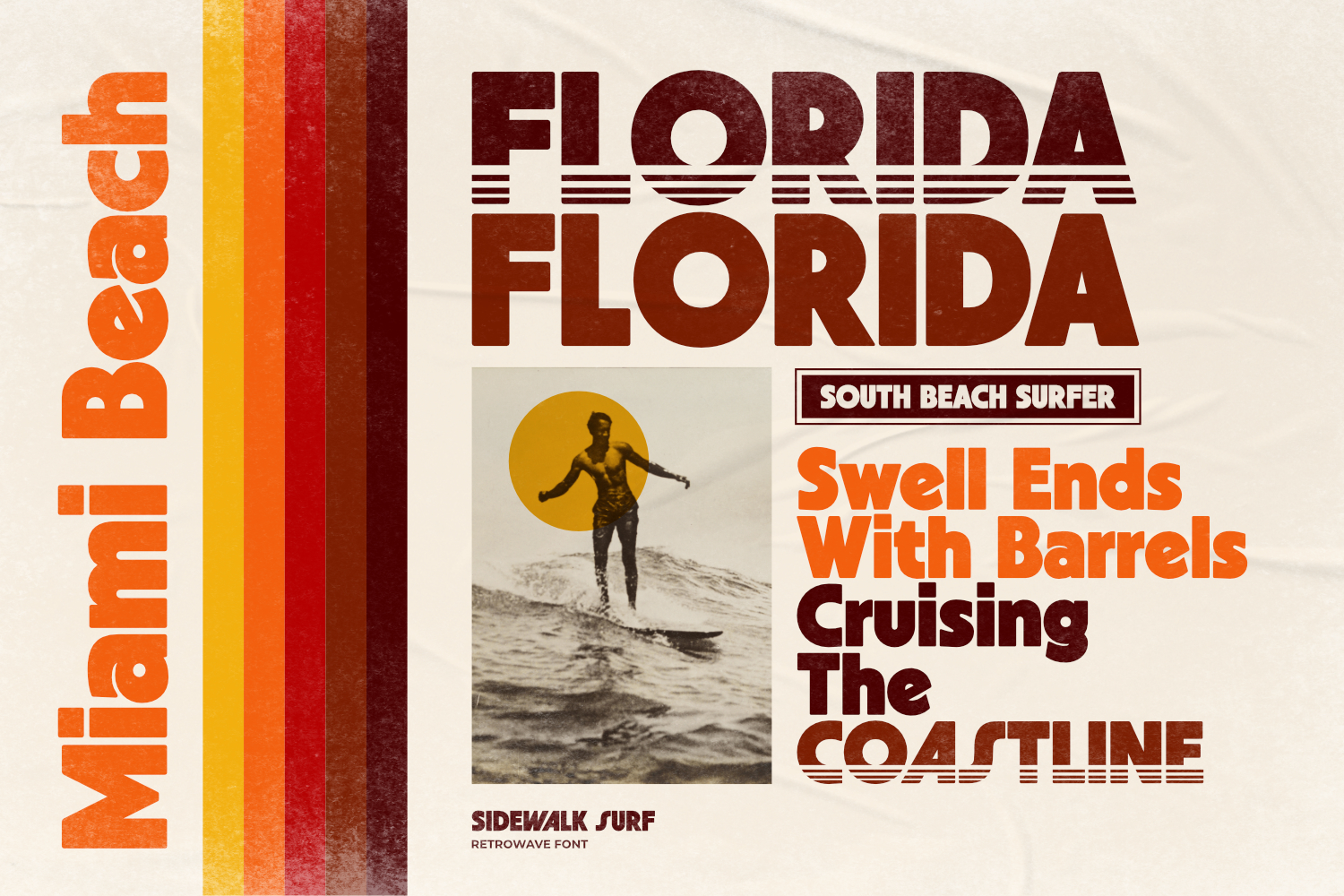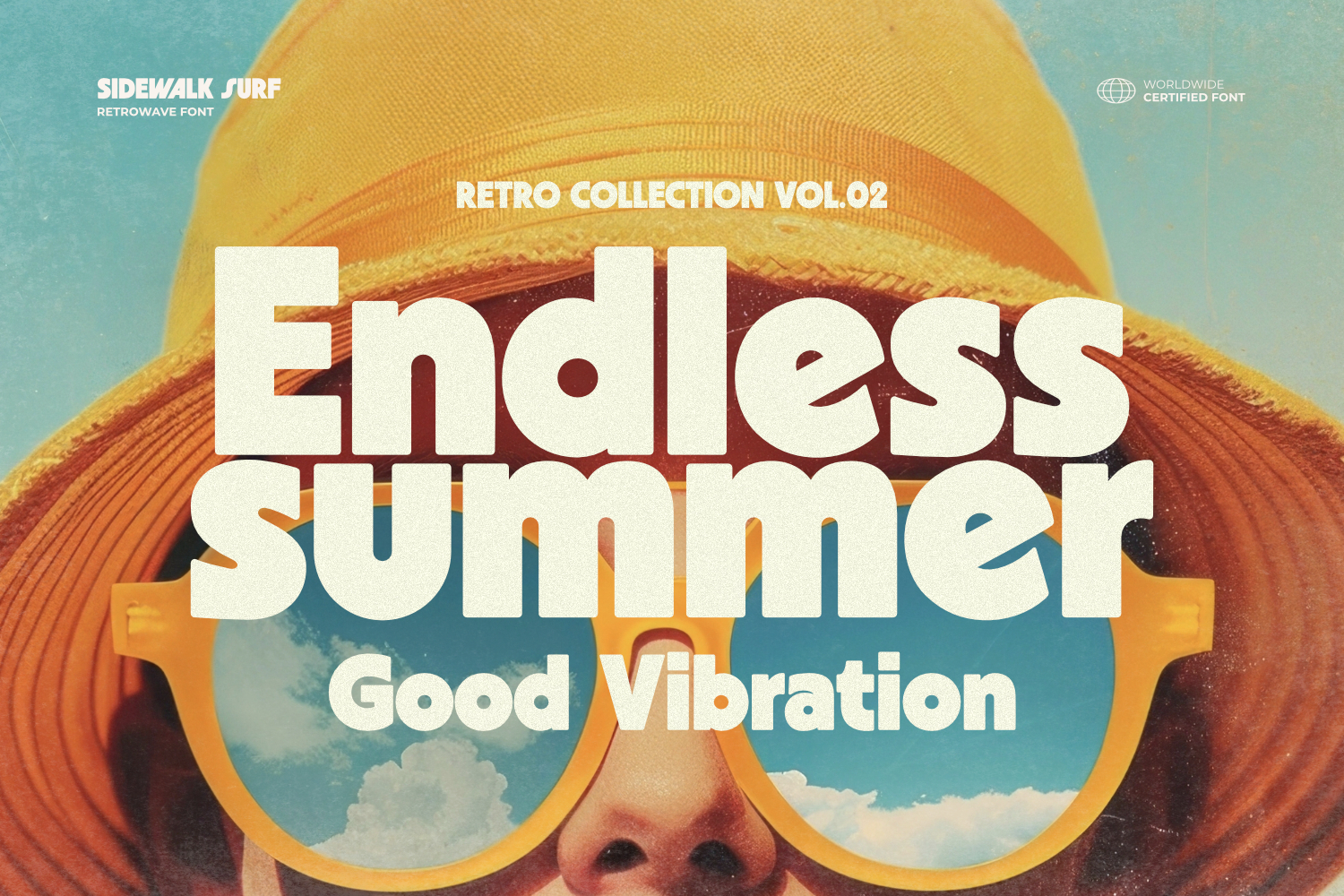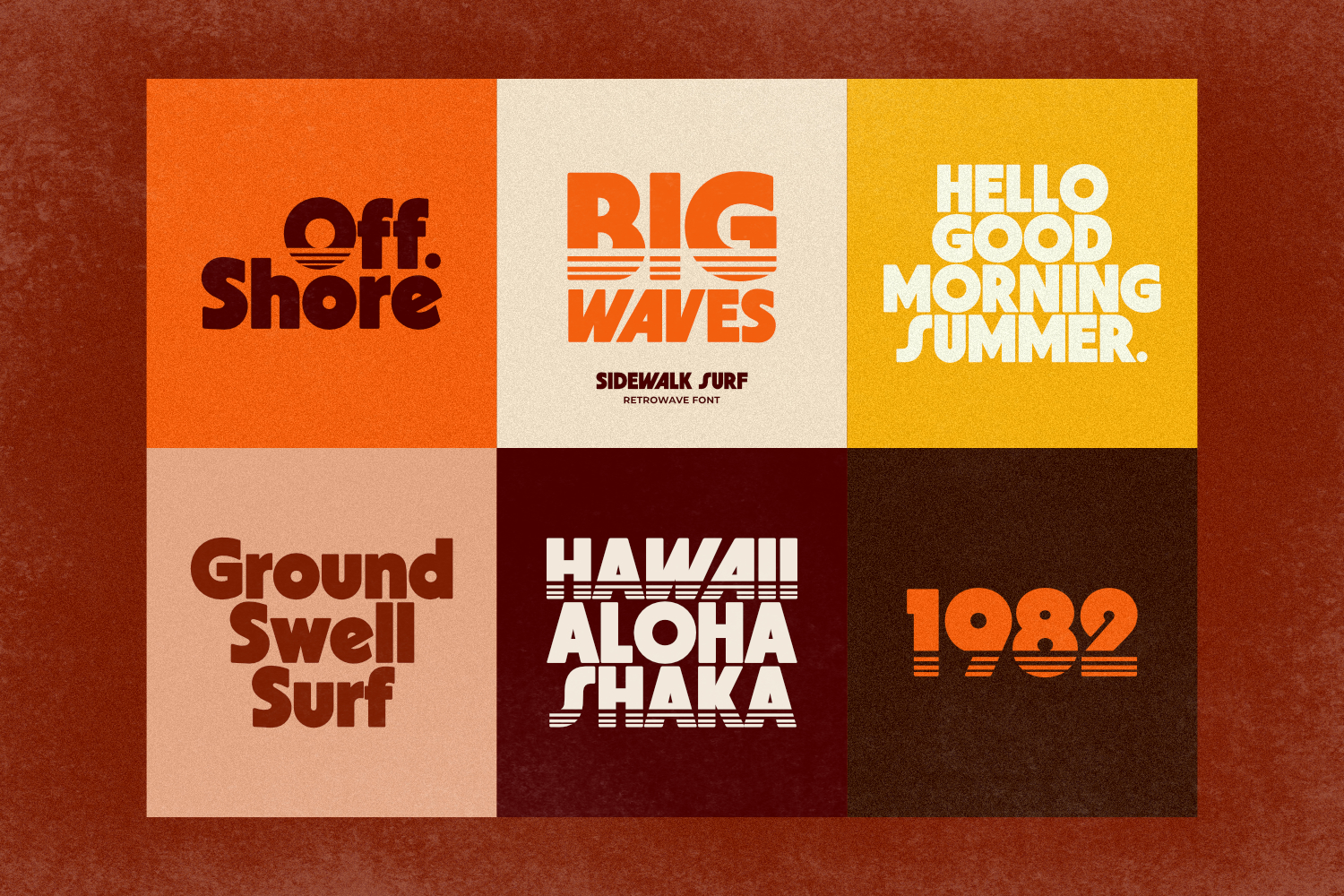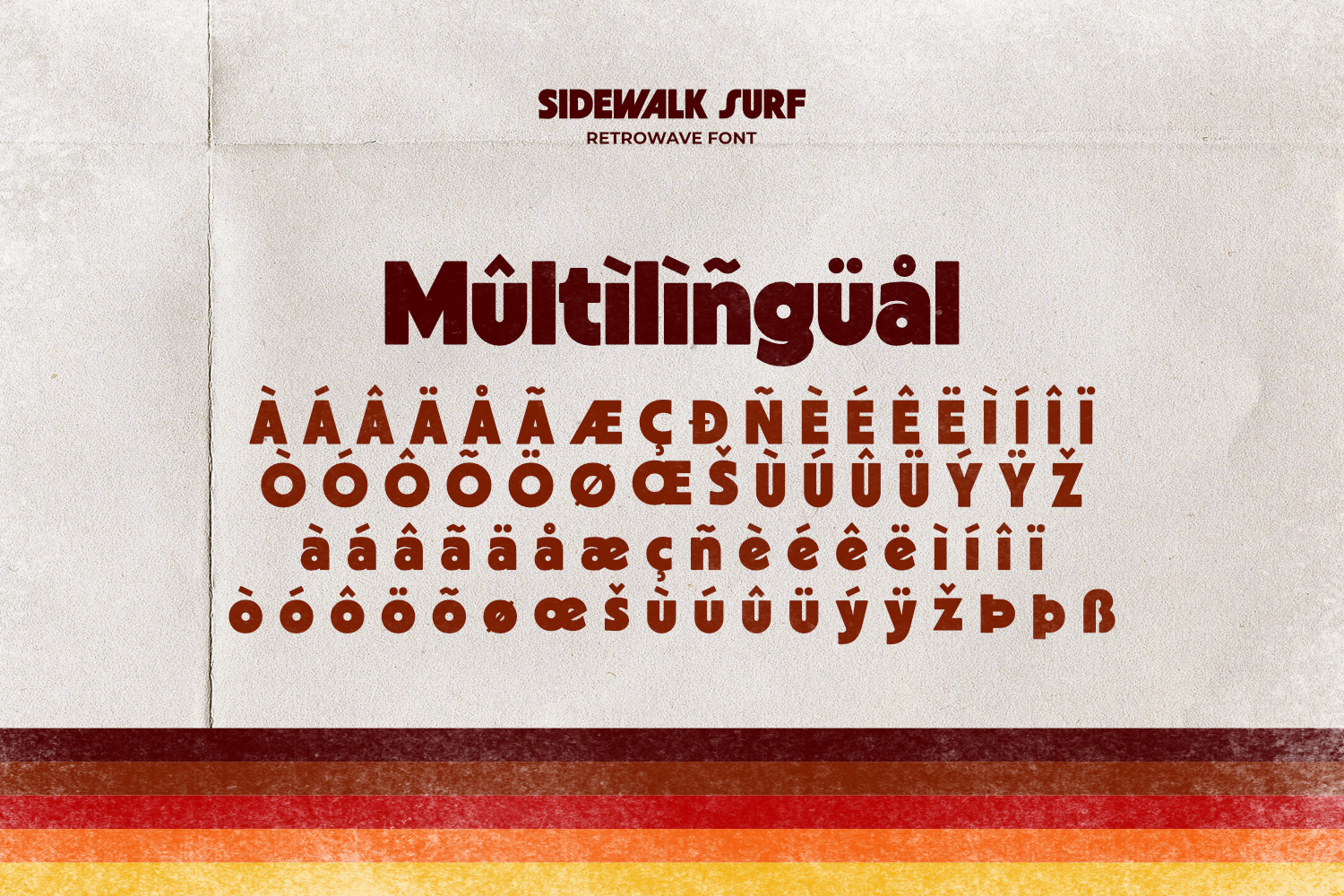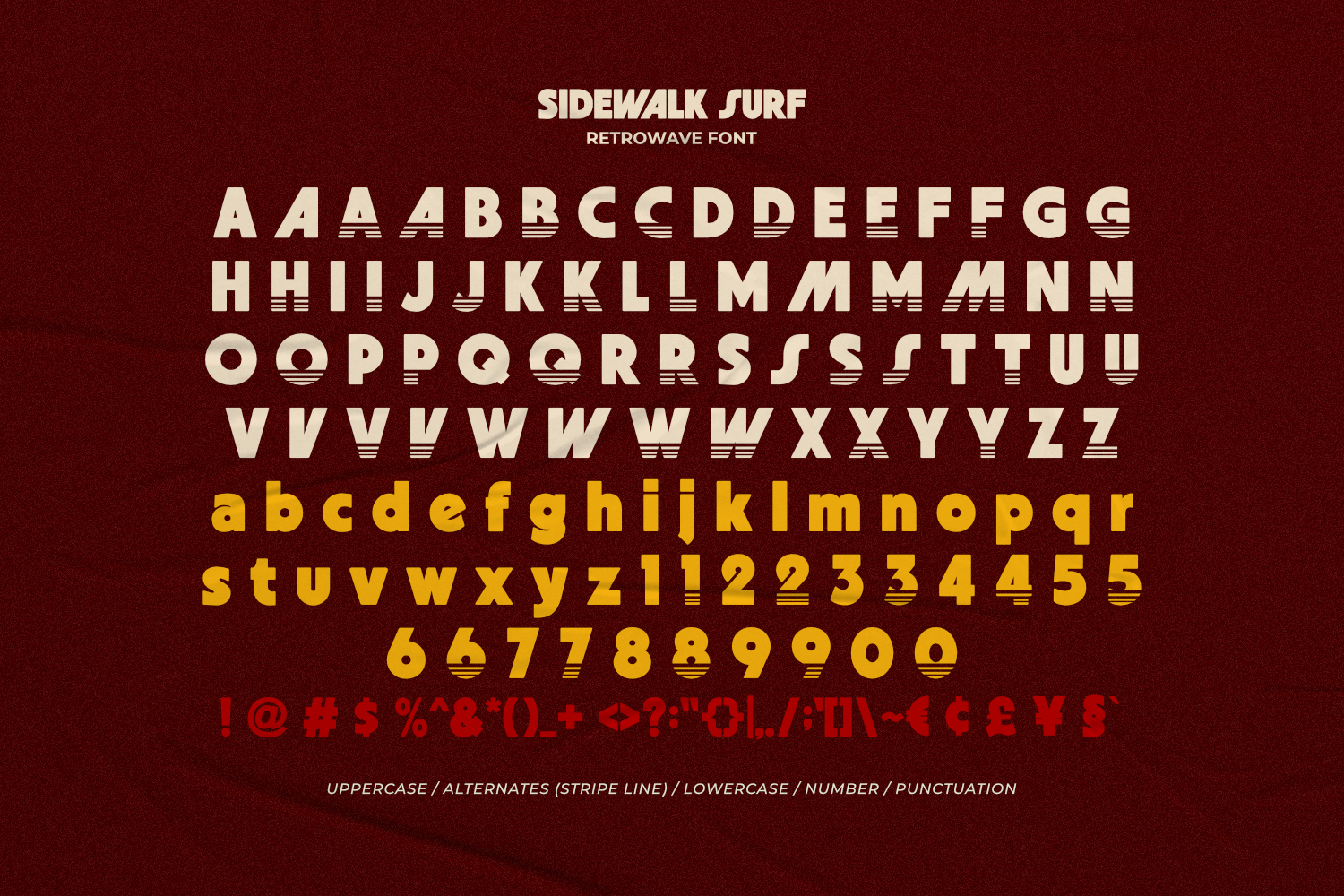
Proudly Present Sidewalk Surf - 80s Retrowave Font, created by ikiiko.
Sidewalk Surf is a bold and dynamic font inspired by the vibrant and nostalgic vibes of the 1980s retrowave culture. This font encapsulates the energetic spirit of the era with its striking lines and retro aesthetics. Ideal for projects that aim to evoke a sense of vintage cool, Sidewalk Surf is perfect for both digital and print designs.
Sidewalk Surf offers both Solid and Stripe Line variations, allowing for versatile design applications. You can use pair this font with contrasting sans-serif fonts for a modern twist. Utilize the Stripe Line style for a more dynamic, movement-oriented design, or experiment with color gradients and neon effects to fully capture the 80s aesthetic.